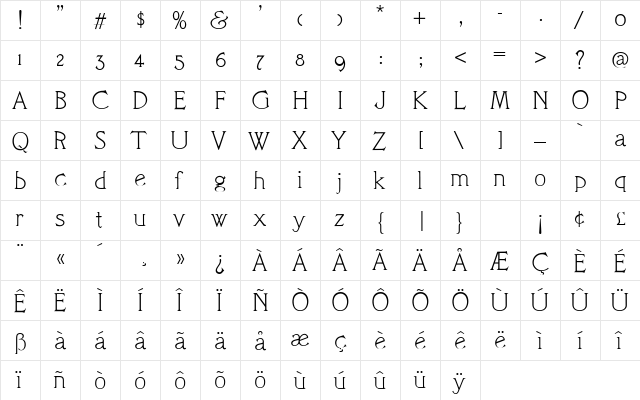
CAC Camelot Regular
Design Context for CAC Camelot Typeface
CAC Camelot offers clean, dependable letterforms without strong stylistic allegiance, making it a practical choice for designers who need flexibility.